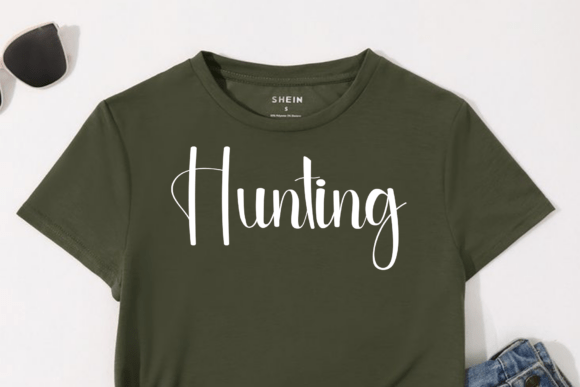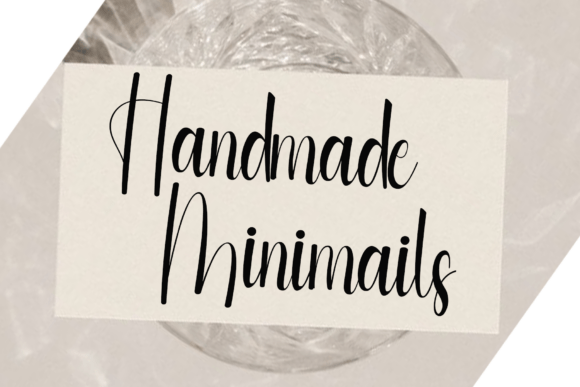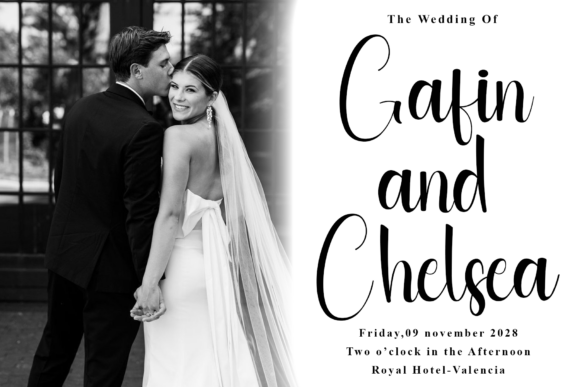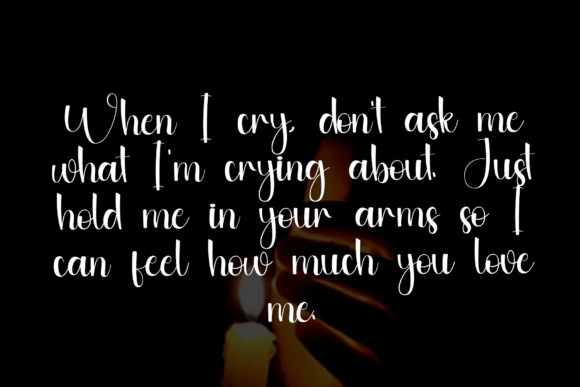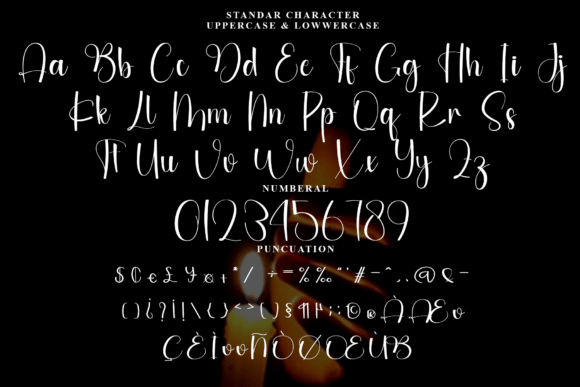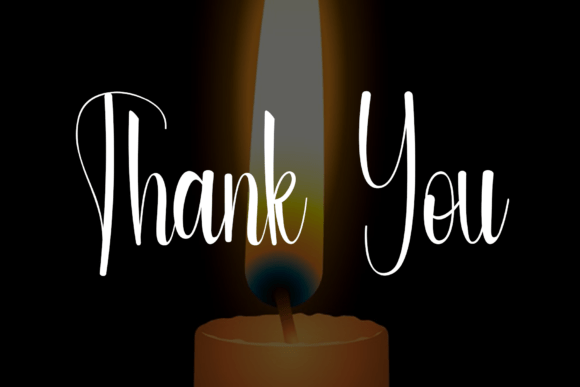
Introducing Blackout Font: Elevate Your Design with Crisp Elegance
In the realm of typography, fonts play a pivotal role in conveying messages, evoking emotions, and creating a lasting impression. Among the myriad of fonts available, Blackout Font stands out as a unique and professional addition to the modern handwritten collection. Designed to evoke a sense of clarity and crisp elegance, Blackout Font is poised to revolutionize the way designers and crafters approach their creative projects.
The Distinctive Features of Blackout Font
Blackout Font is characterized by its tall, thin strokes and subtle, airy slant, which collectively contribute to a refined aesthetic. This font’s clean and approachable style makes it an ideal choice for various applications, including travel photography, branding for outdoor gear, and sophisticated web design. The design of Blackout Font is inspired by the freshness and clarity of a mountain breeze, making it perfect for projects that require a sense of serenity and elegance.
Why Choose Blackout Font?
Blackout Font offers a multitude of benefits that make it a preferred choice among designers and crafters. Some of the key advantages of using Blackout Font include:
- Unique and Professional: Blackout Font boasts a distinctive style that sets it apart from other fonts in the modern handwritten collection.
- Crisp Elegance: The font’s tall, thin strokes and subtle slant evoke a sense of clarity and sophistication.
- Versatility: Blackout Font can be used in a wide range of applications, from travel photography to web design.
- Clean and Approachable: The font’s clean and approachable style makes it perfect for projects that require a sense of freshness and elegance.
Applications of Blackout Font
Blackout Font’s versatility makes it an excellent choice for various design projects. Some of the ideal applications of Blackout Font include:
- Travel Photography: Blackout Font’s clean and elegant style makes it perfect for travel photography, where a sense of adventure and sophistication is required.
- Branding for Outdoor Gear: The font’s outdoor-inspired aesthetic makes it an ideal choice for branding outdoor gear, such as hiking boots, camping equipment, and apparel.
- Sophisticated Web Design: Blackout Font’s refined aesthetic and clean style make it perfect for sophisticated web design, where a sense of elegance and professionalism is required.
Tips for Using Blackout Font Effectively
To get the most out of Blackout Font, here are some tips for using it effectively:
- Pair with Other Fonts: Blackout Font can be paired with other fonts to create a unique and visually appealing combination.
- Use in Headings and Titles: The font’s bold and elegant style makes it perfect for headings and titles, where a sense of sophistication is required.
- Experiment with Colors: Blackout Font can be used in a variety of colors to create a distinct look and feel.
In conclusion, Blackout Font is a unique and professional addition to the modern handwritten collection. Its distinctive features, versatility, and clean aesthetic make it an ideal choice for designers and crafters looking to elevate their creative projects. Whether you’re working on travel photography, branding for outdoor gear, or sophisticated web design, Blackout Font is sure to make a lasting impression.